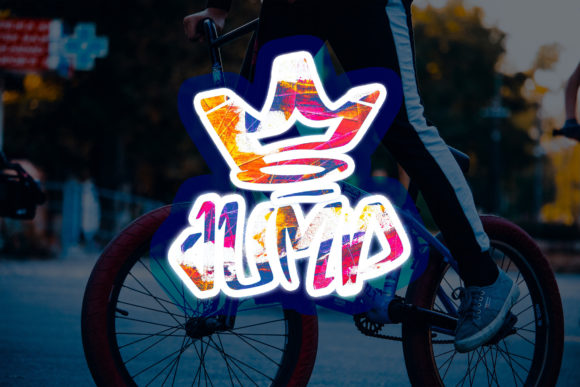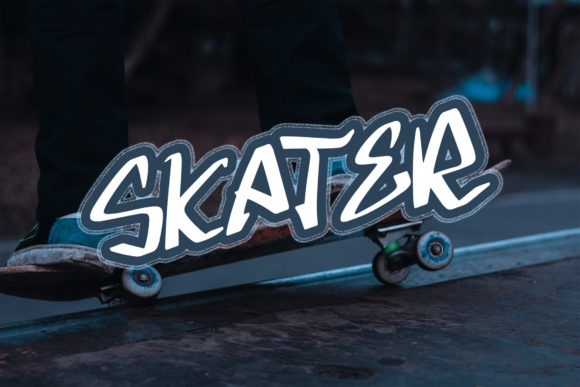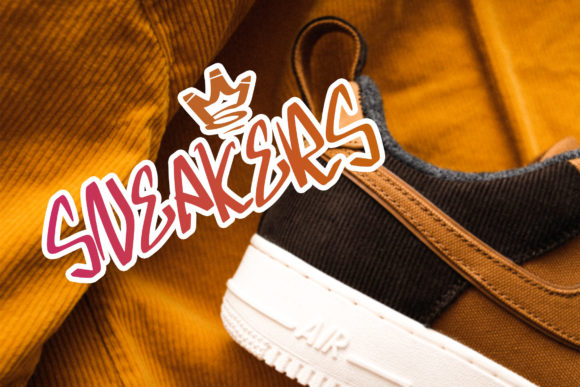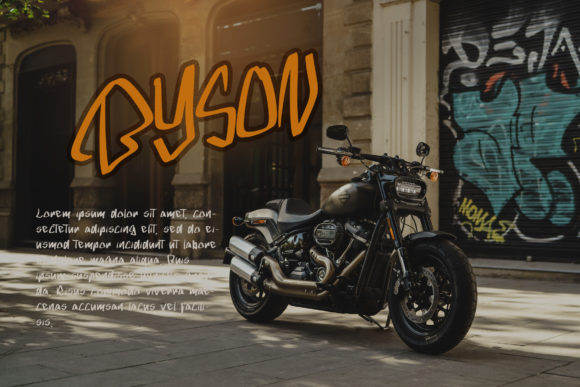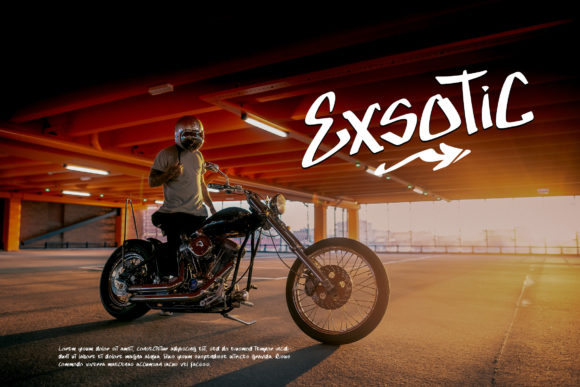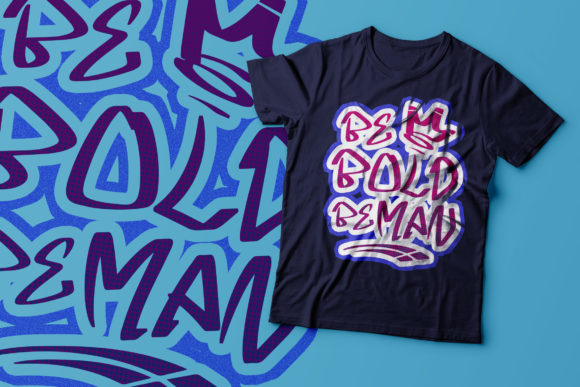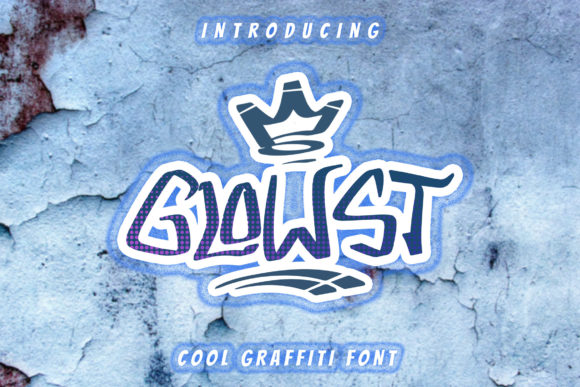
Introducing Glowst Font: The Ultimate Graffiti Styled Display Font
Are you tired of using the same old fonts in your designs? Look no further! Glowst Font is here to take your creative projects to the next level. This cool, graffiti styled display font is perfect for designers and crafters who want to add a touch of quirkiness and uniqueness to their work.
What Makes Glowst Font So Special?
Glowst Font is not just another font – it’s an experience. Its quirky and unique characters are carefully crafted to shape your designs into real works of art. With Glowst Font, you can add a confident and bold statement to your projects, and the results are sure to be stunning.
Whether you’re a professional designer or a crafter looking for a unique touch, Glowst Font is the perfect addition to your toolkit. Its versatility and flexibility make it suitable for a wide range of projects, from:
- Party invitations and decorations
- DIY crafts and scrapbooking
Key Features of Glowst Font
So, what makes Glowst Font so special? Here are some of its key features:
- Unique and quirky characters: Each character in Glowst Font is carefully designed to add a touch of personality to your designs.
- Graffiti styled: Inspired by the urban art scene, Glowst Font brings a cool and edgy vibe to your projects.
- Display font: Designed to make a statement, Glowst Font is perfect for headlines, titles, and emphasis text.
How to Use Glowst Font in Your Designs
Using Glowst Font in your designs is easy! Here are some tips to get you started:
- Choose a bold and colorful background to make your text pop.
- Experiment with different font sizes and styles to add emphasis and hierarchy to your design.
- Combine Glowst Font with other fonts to create a unique and interesting contrast.
- Don’t be afraid to get creative and add your own personal touch to your designs.
Why You’ll Love Glowst Font
So, why will you love Glowst Font? Here are just a few reasons:
- It’s fun and playful: Glowst Font adds a touch of whimsy and fun to your designs, making them more engaging and interesting.
- It’s versatile: Glowst Font can be used in a wide range of projects, from formal to informal, and from digital to print.
- It’s easy to use: With its simple and intuitive design, Glowst Font is easy to use, even for those who are new to design.
In conclusion, Glowst Font is a cool, graffiti styled display font that’s perfect for designers and crafters who want to add a touch of quirkiness and uniqueness to their work. With its unique and quirky characters, graffiti styled design, and ease of use, Glowst Font is sure to become a favorite in your toolkit. So why wait? Add Glowst Font to your collection today and start creating real works of art!